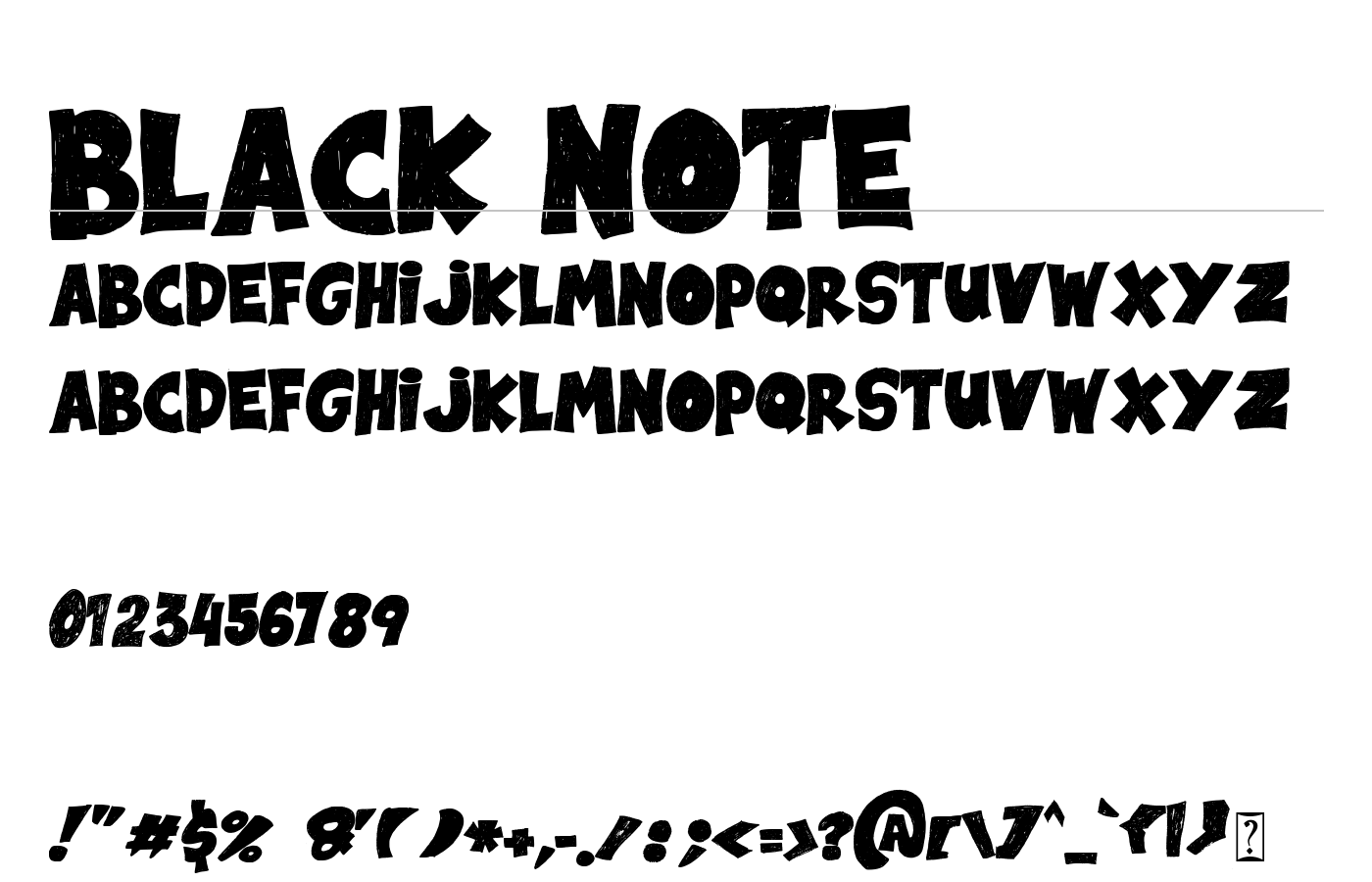
Black Note is a bold and playful hand-drawn sans serif font with a rough, textured style that adds a fun and informal vibe. Its chunky, irregular letterforms make it perfect for eye-catching headlines, posters, and creative projects that want to convey energy and personality without feeling polished or formal. This font works especially well in designs targeting a youthful, casual audience or any context where a lively, handwritten touch is desired.
Black Note Font
About Black Note Font